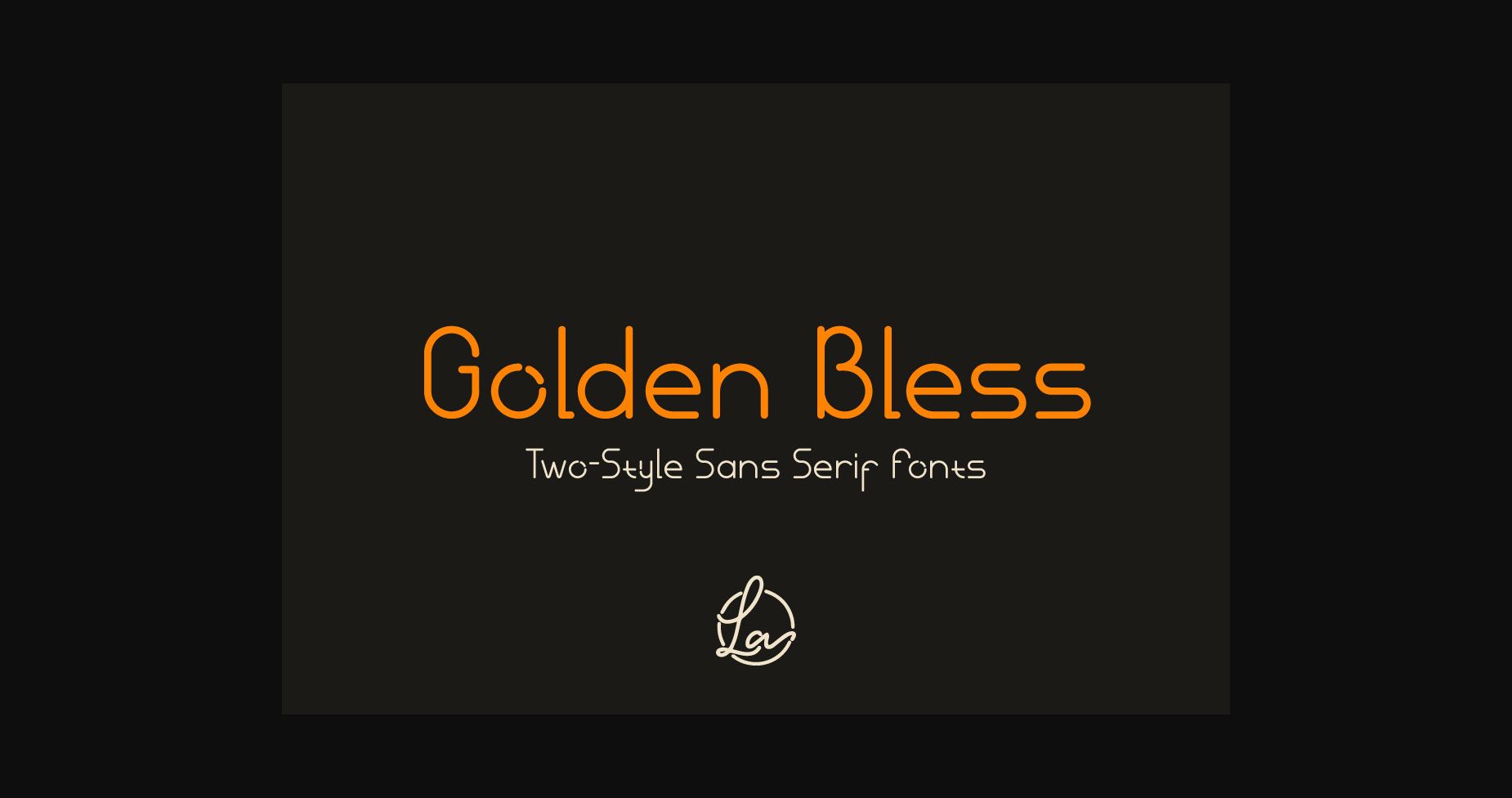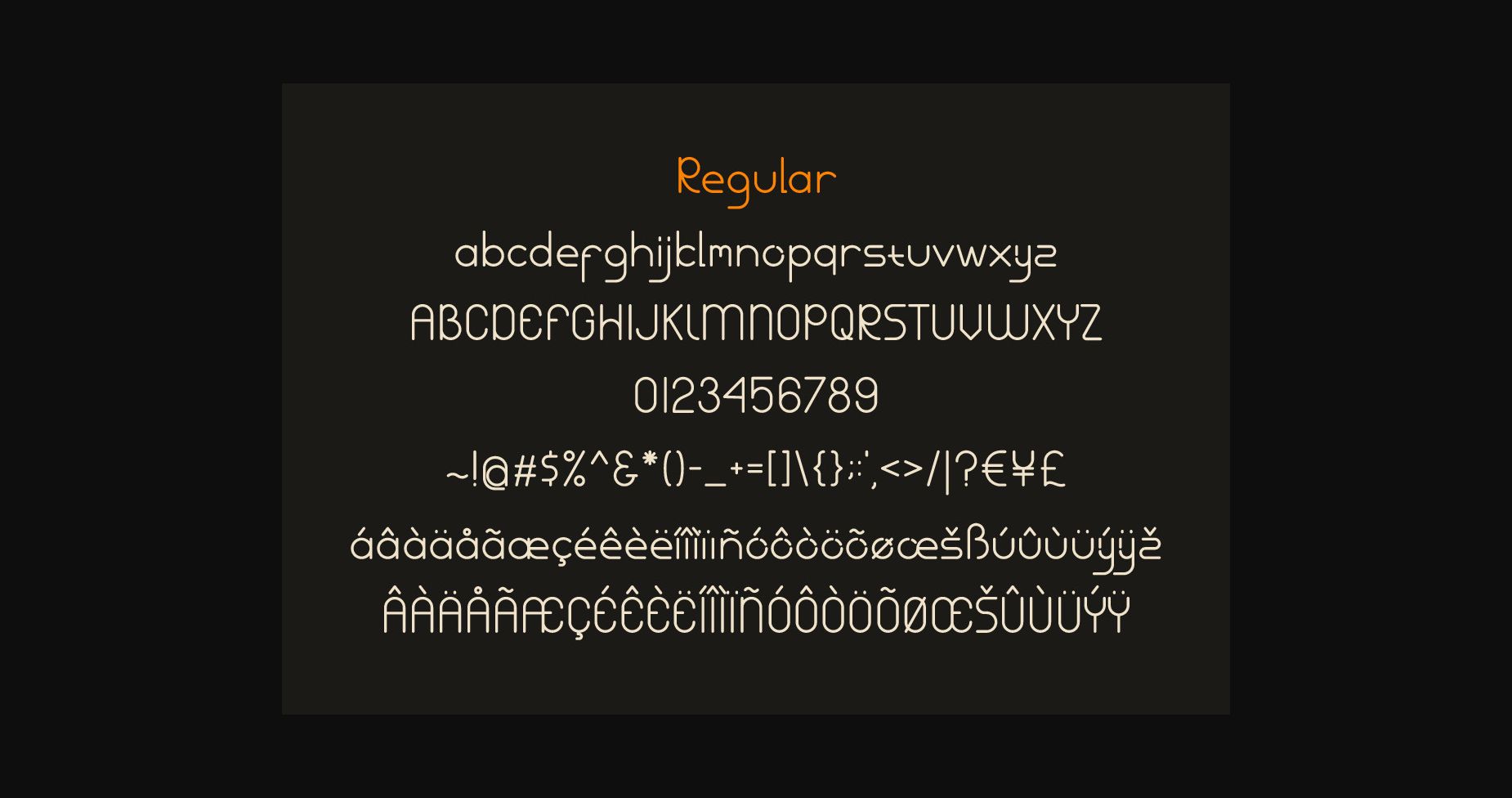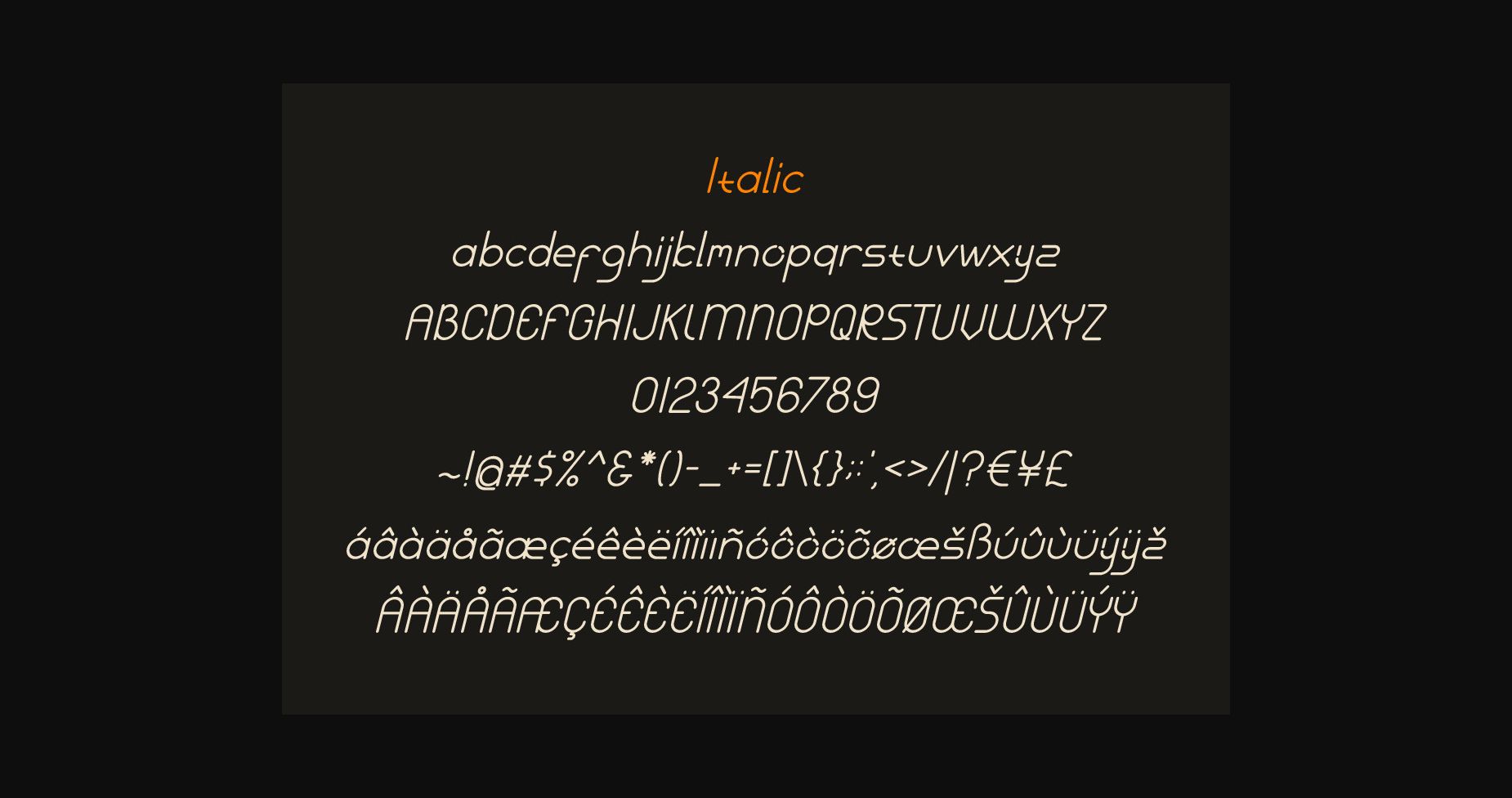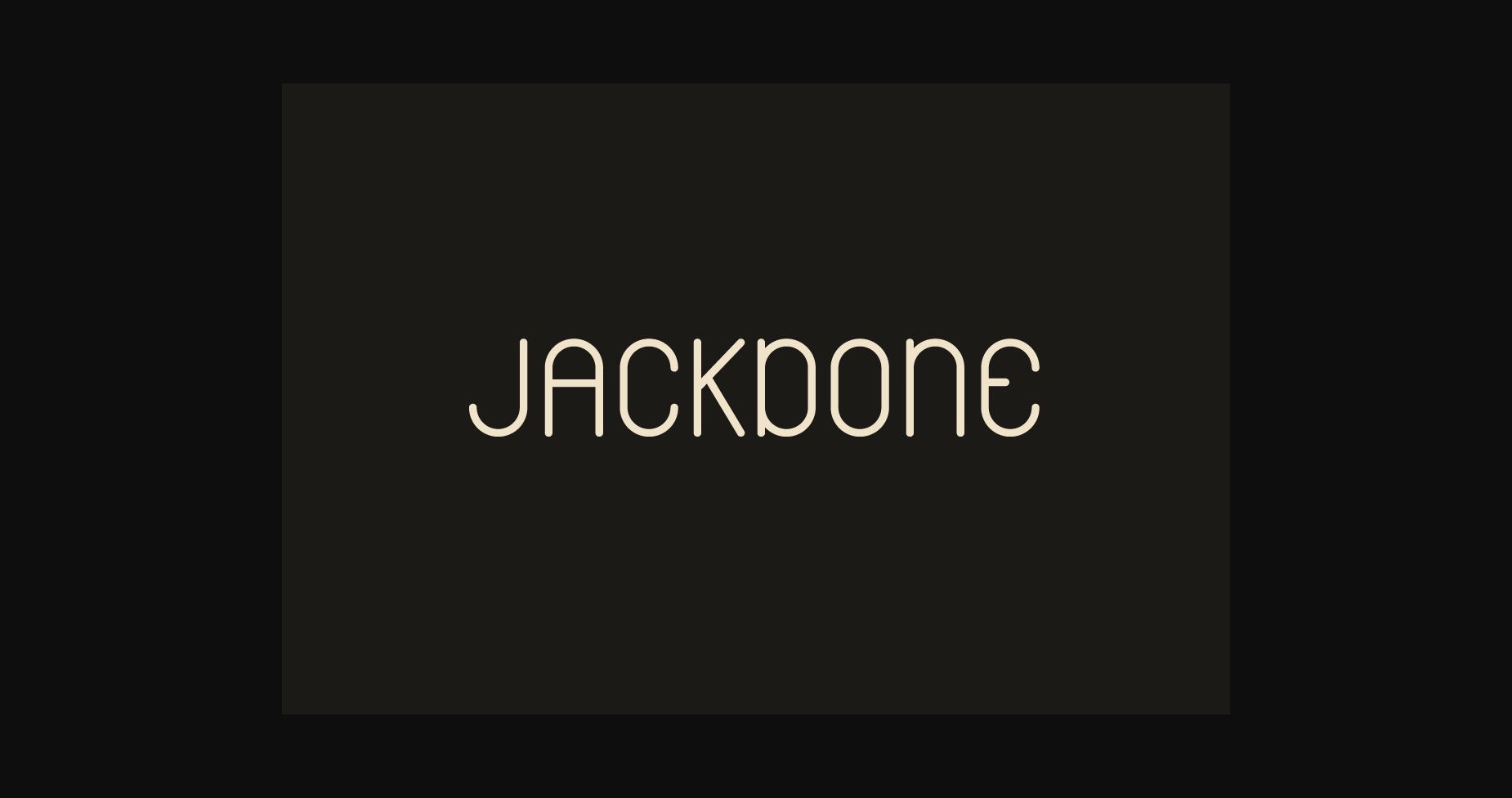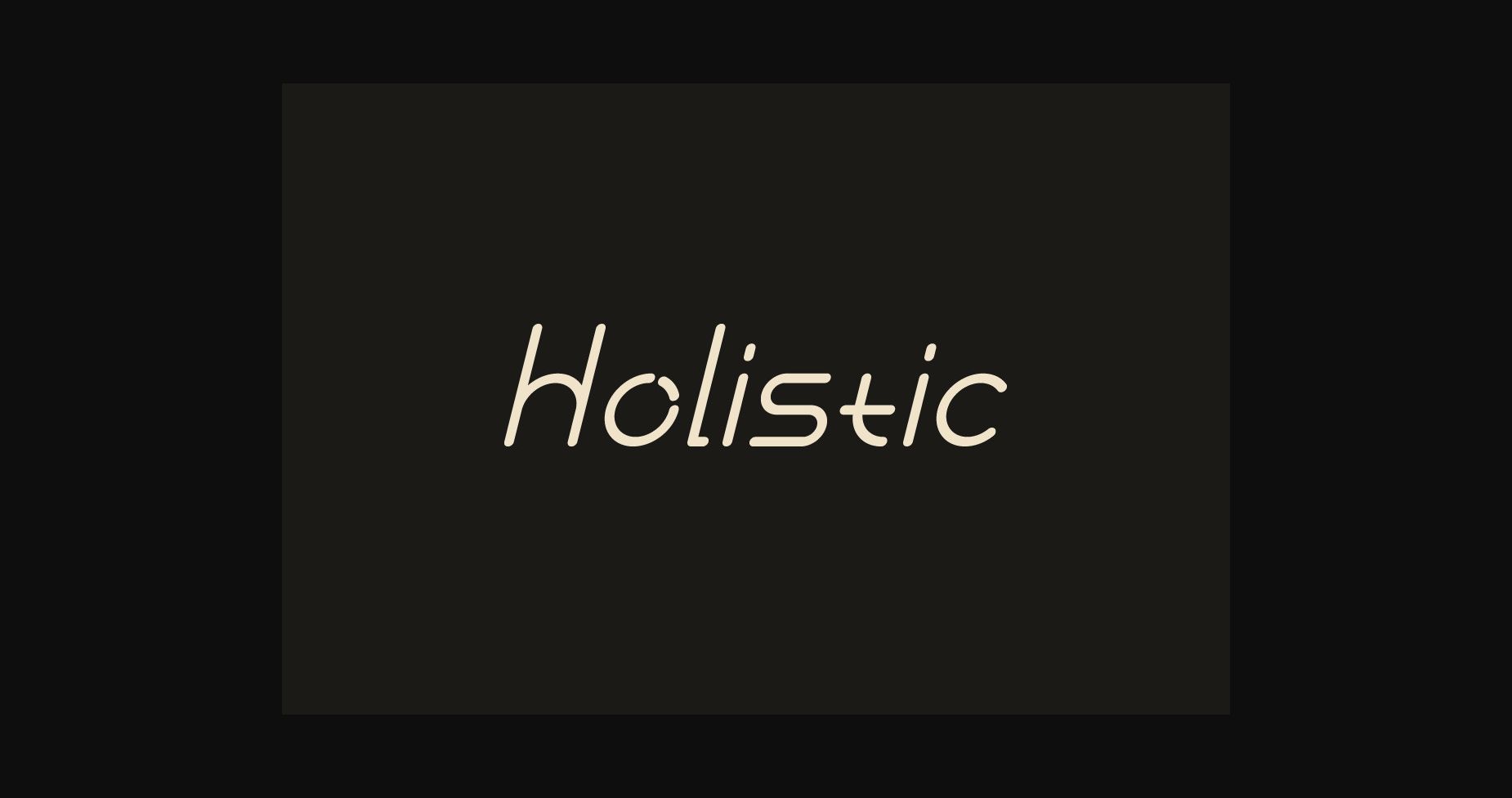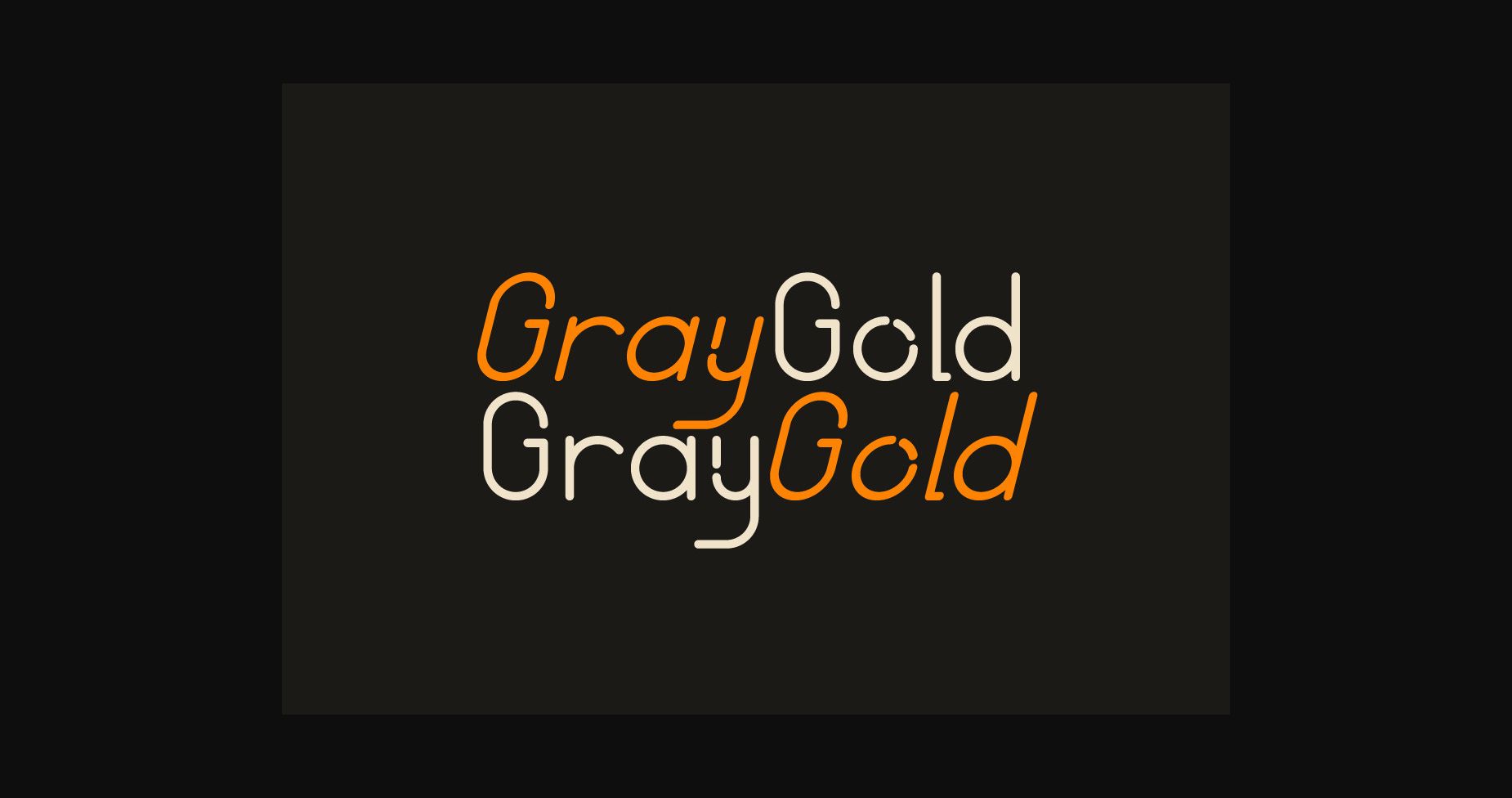
Golden Bless Font
About Golden Bless Font
Golden Bless is a modern, elegant, and beautiful sans serif style font suitable for designing minimalist logos, wordmarks, titles, taglines, and many more. Add it to each of your creative projects, and make them outstanding!